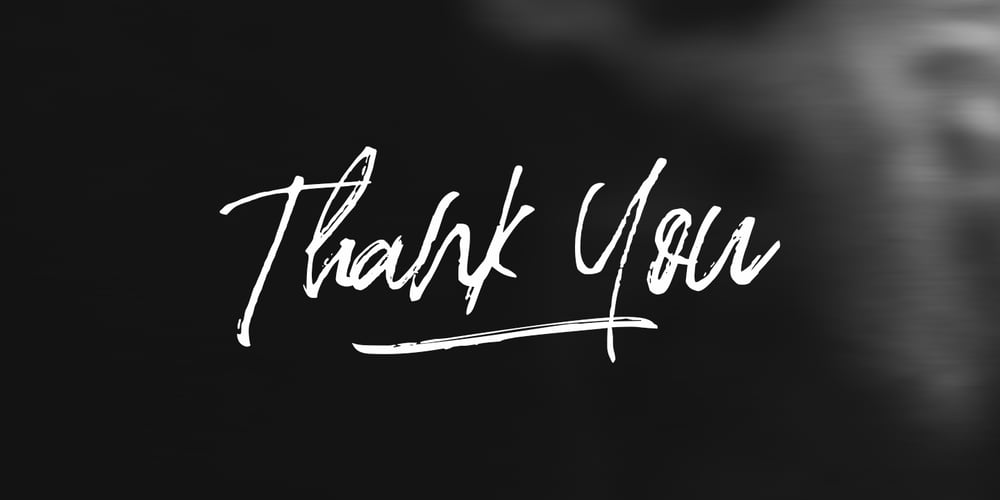
Blade
Blade font
Blade Font Family was designed by Sarwo Edhi Prayitno and published by Haksen. Blade contains 2 styles and family package options. Blade A rustic, dapper handwritten font with a personal charm. With quick dry strokes and a brush style, Blade is perfect for branding projects, homeware designs, product packaging – or simply as a stylish text overlay to any background image. Blade includes 2 font files: Blade – A handwritten script font containing upper & lowercase characters, numerals and a large range of punctuation. Blade Swashes – A set of 26 hand-drawn swashes, the perfect finishing touch to underline your Blade text. Simply install this as a separate font, select it from your font menu and type any A-Z uppercase a-z lowercase and number 0-9 character to create a swash. Ligatures are also available for several lowercase characters (double-letters which flow more naturally). These are only accessible via software with opentype capability or a glyphs panel, e.g. Photoshop/Illustrator. That’s it! I really hope you enjoy it – please do let me know what you think, comments & likes are always hugely welcomed and appreciated. More importantly, please don’t hesitate to drop me a message if you have any issues or queries.